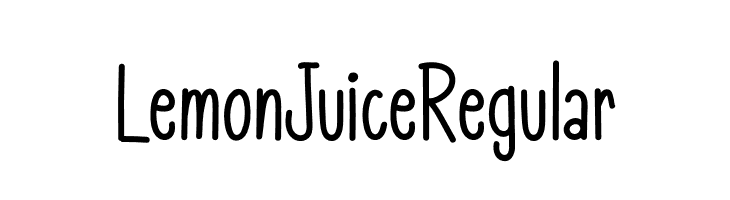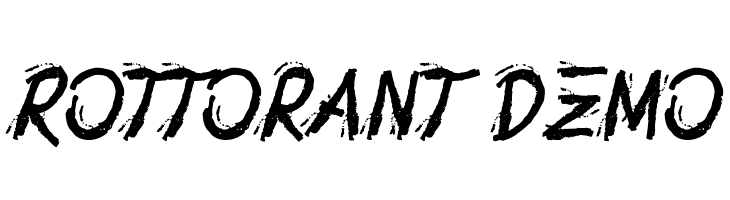
( Fonts by Masa Aska Sanurumi )
A clean, handwritten-style font with thin, uniform strokes and a modern aesthetic.
A bold, textured font with a grunge-like, three-dimensional appearance.
( Fonts by www.typodermicfonts.com - Ray Larabie )
A bold, geometric font with a futuristic double-line style.
A bold, angular font with a futuristic and dynamic design.
( Fonts by www.dcoxy.com )
A playful, handwritten-style font with rounded, connected characters.
( Fonts by Dondon Nillo )
A modern, geometric font with rounded edges and a clean, minimalistic style.
( Fonts by Khurasan )
A bold, rounded font with a playful and friendly appearance.
( Fonts by www.aenigmafonts.com )
A decorative, geometric font with a 3D, crystal-like design.
A bold, futuristic font with a glitch effect, ideal for modern and tech-themed designs.
A bold, italicized font with rounded, slightly condensed characters.
设计师偏爱 Masa Practice, DarkPapers, DeluxeDucks-Regular, Noasarck Quattro and Roses Kingdom,因为其造型干净、适用范围广—— 从品牌识别到落地页、海报都能胜任。